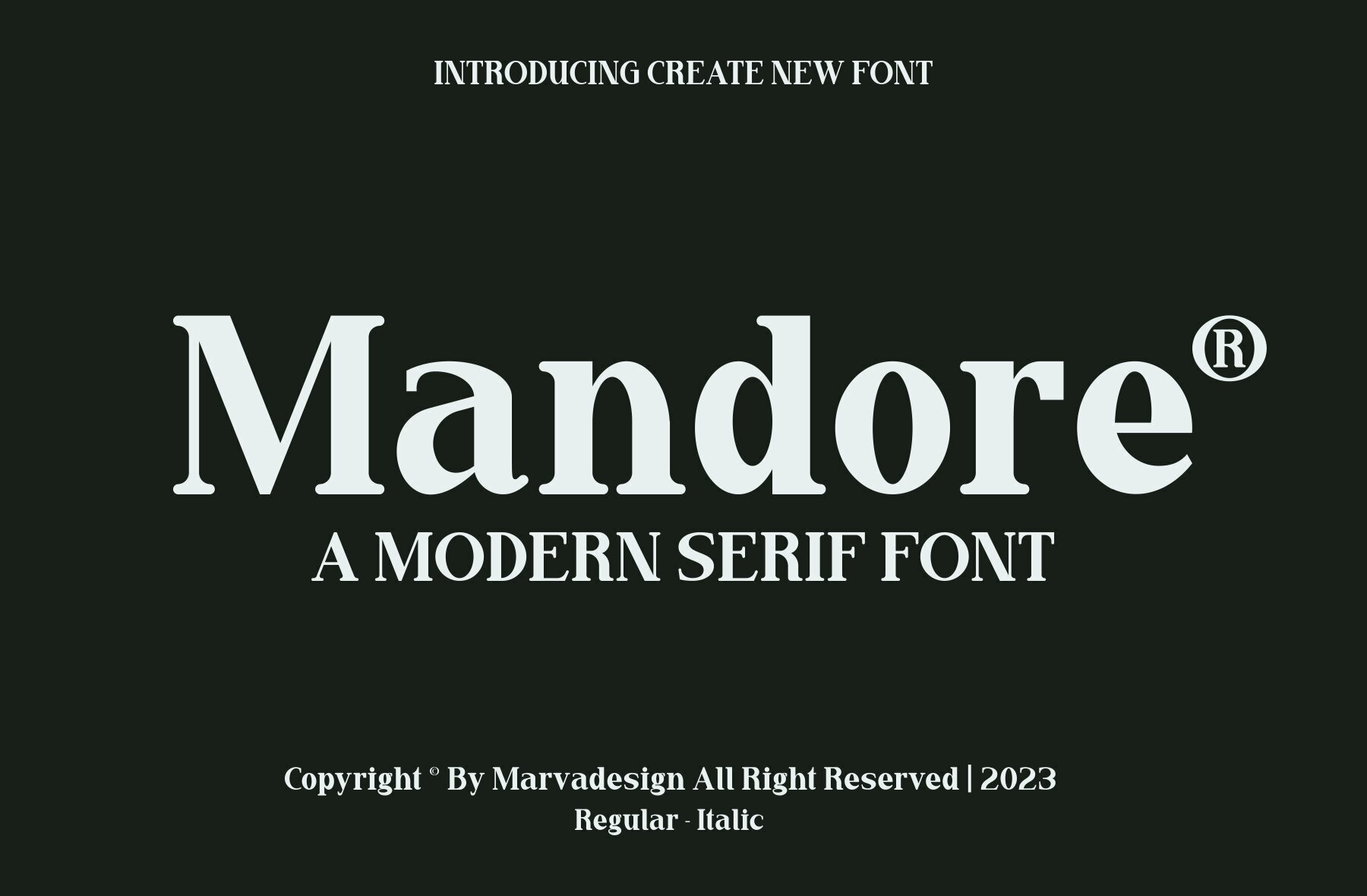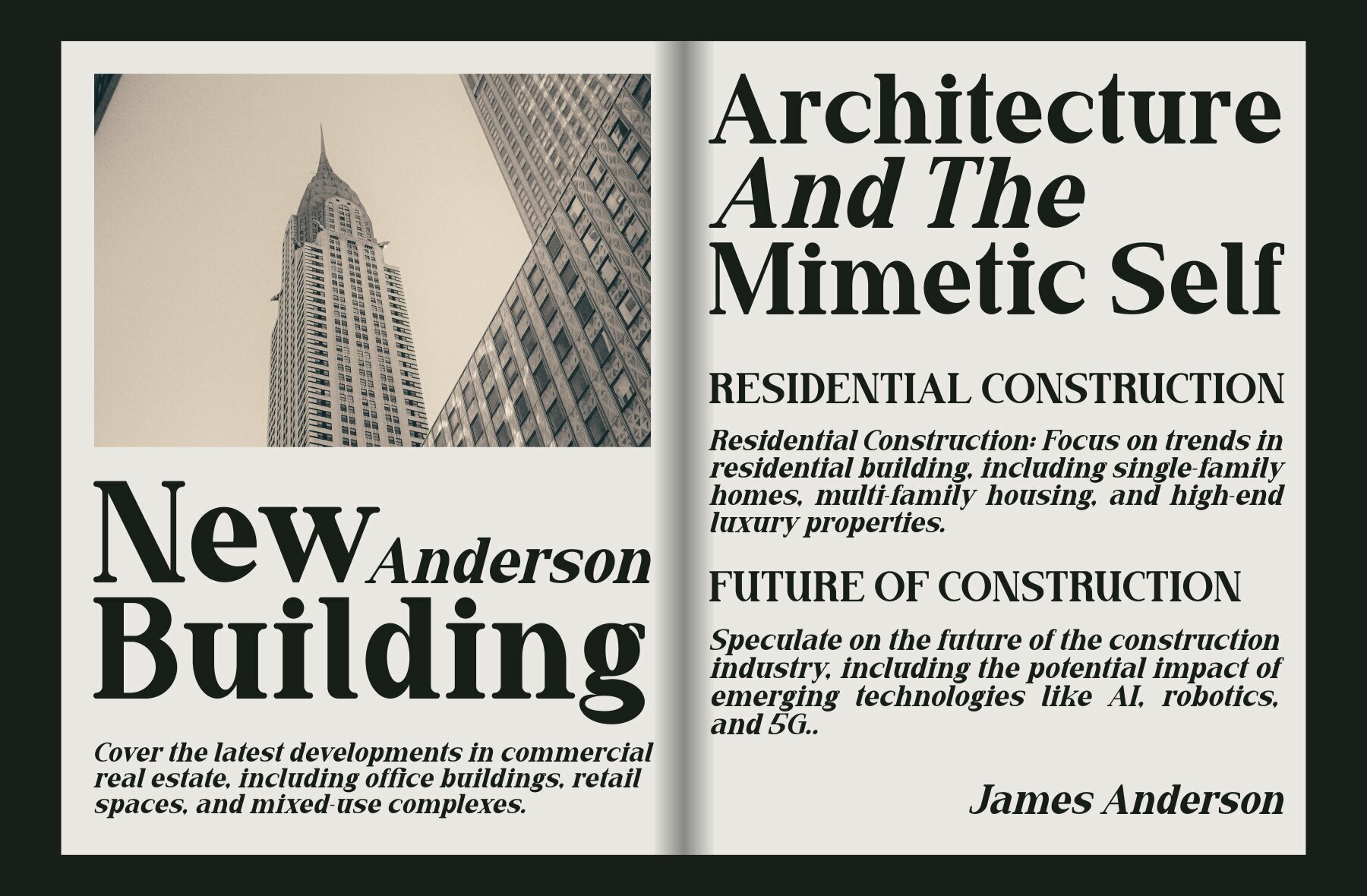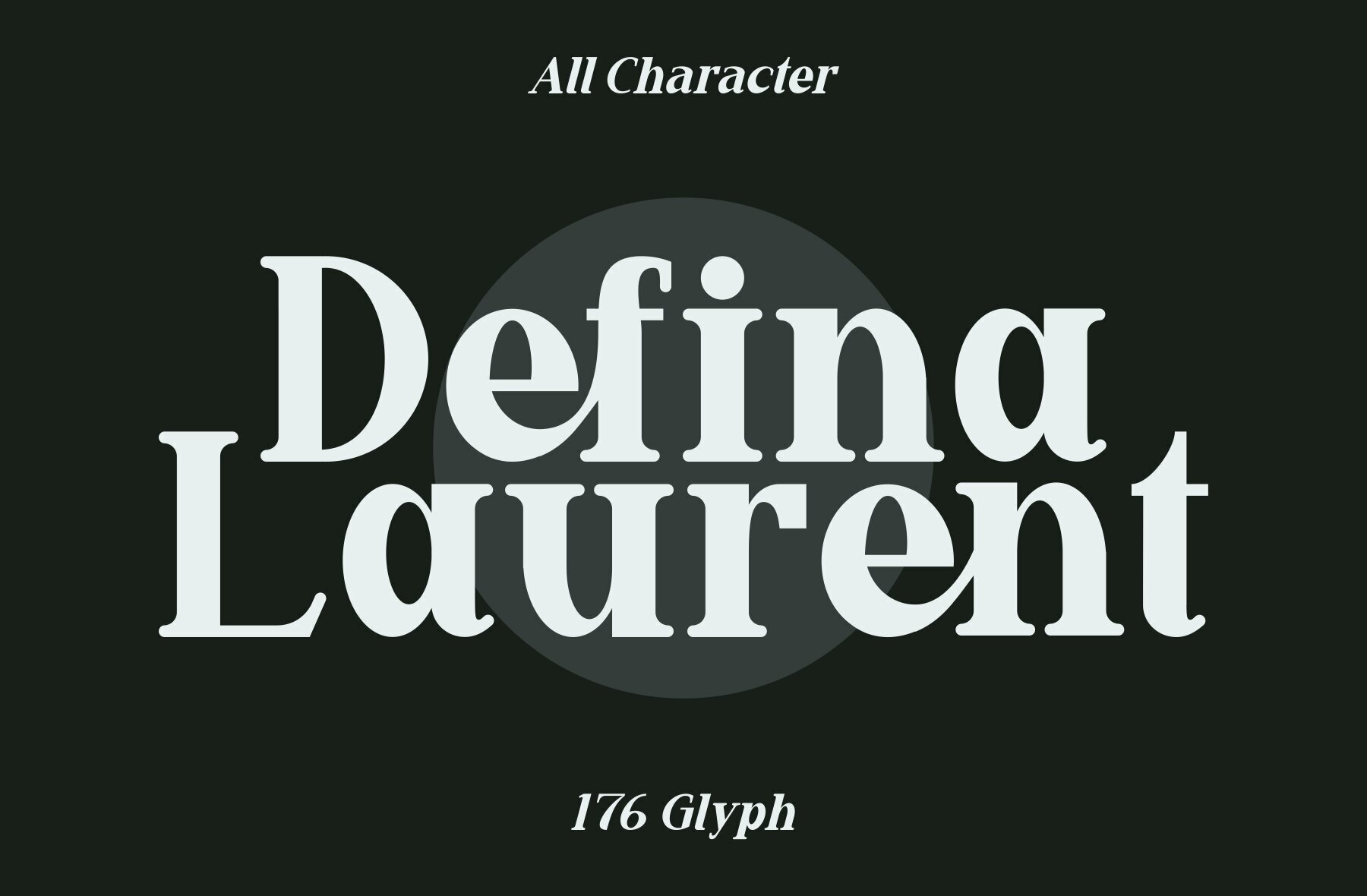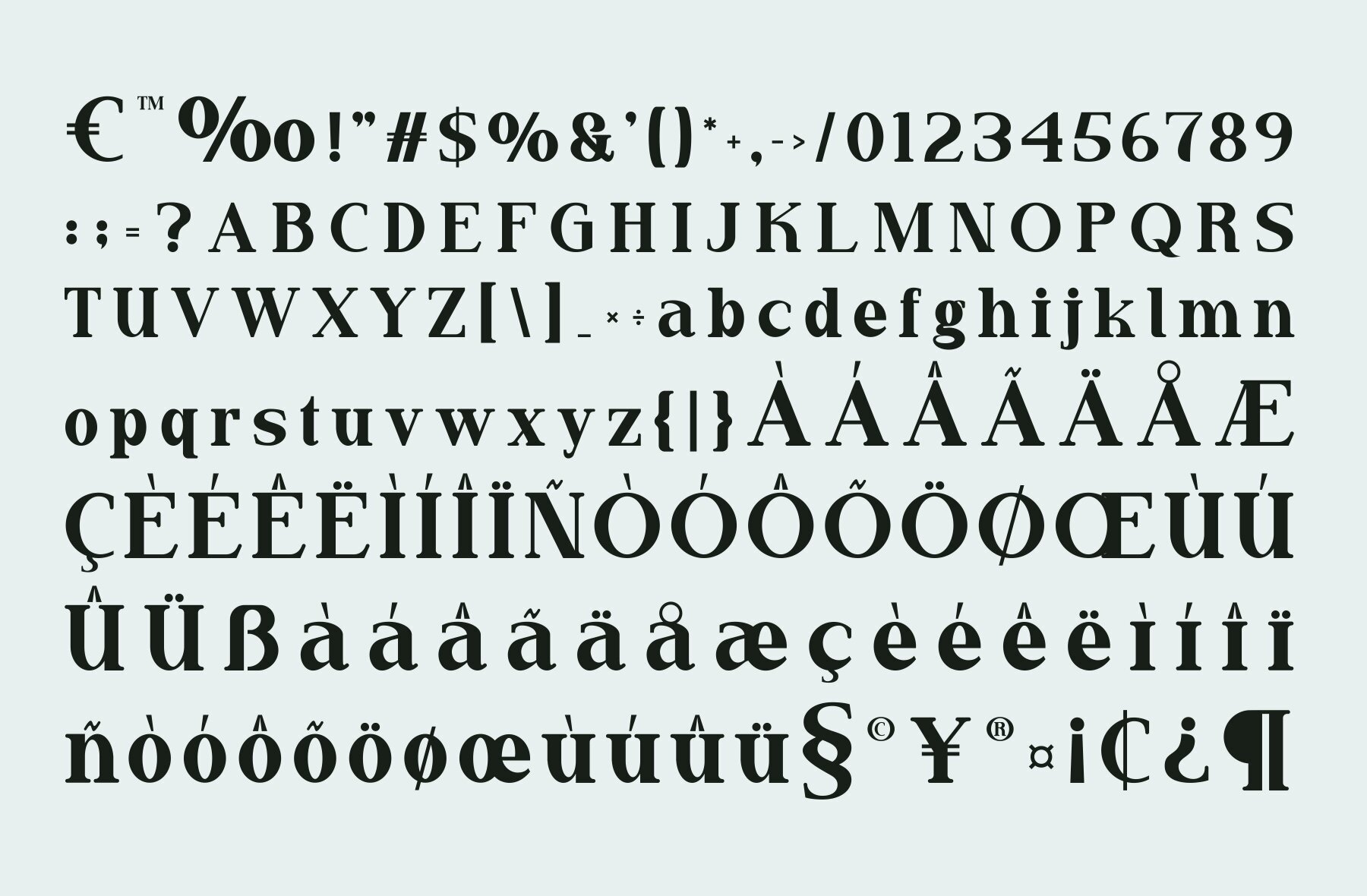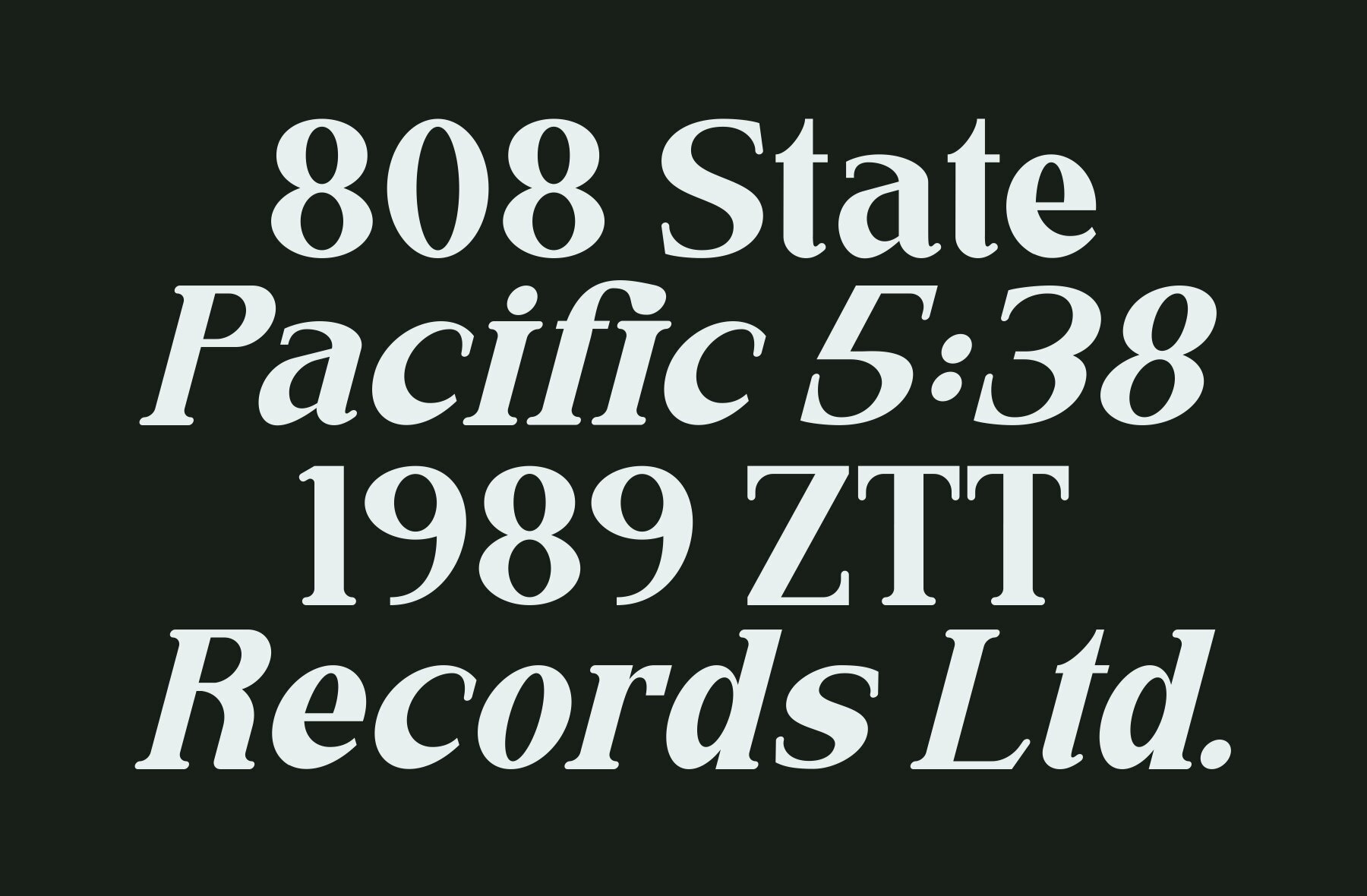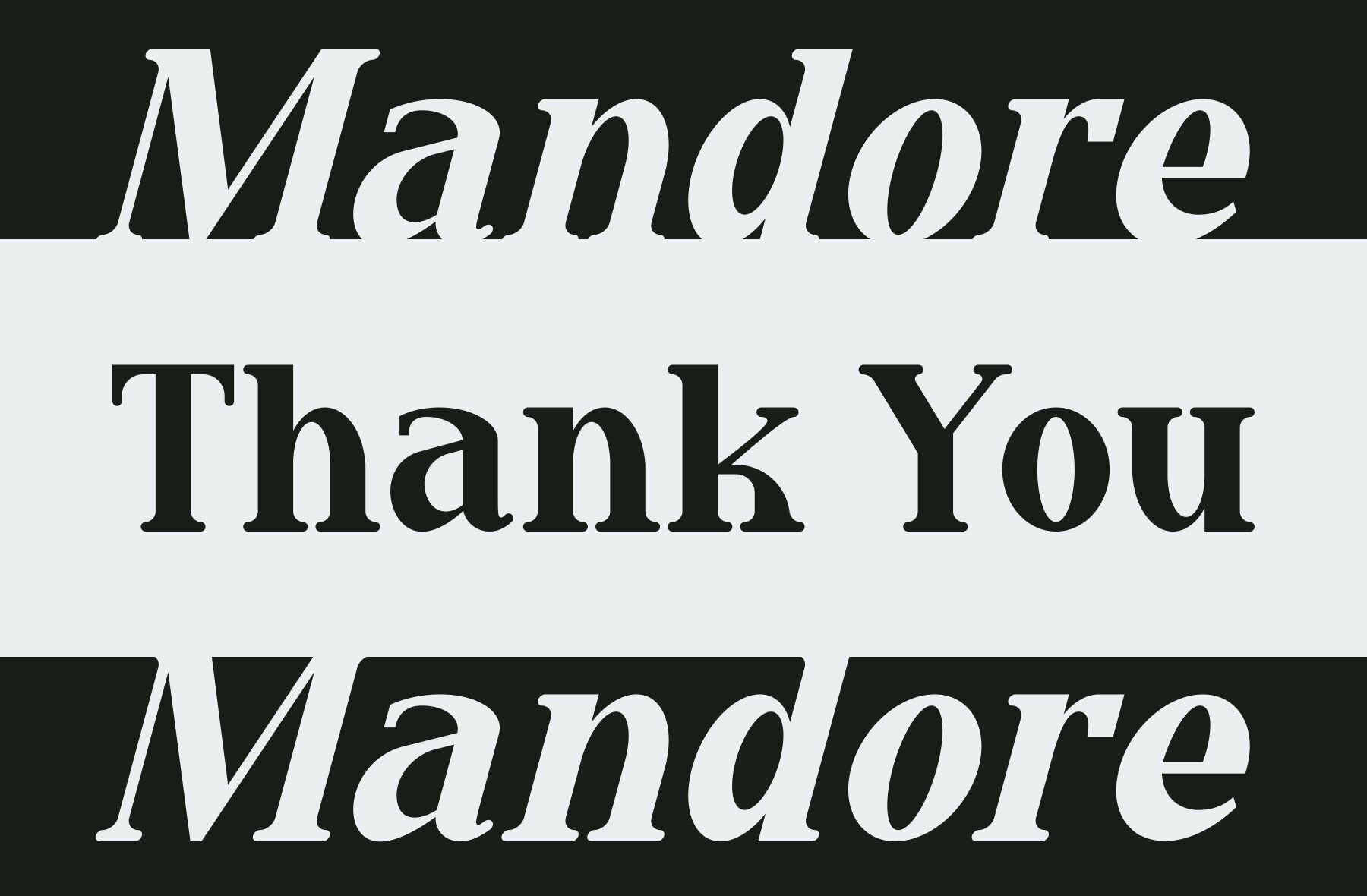
Mandore Font
The Mandore Font offers a modern, bold design that is perfect for any branding project. Whether used for logos, templates, or product designs, this authentic display font delivers outstanding results in a wide range of contexts.Mandore: Bold Display Font for Diverse Branding Needs